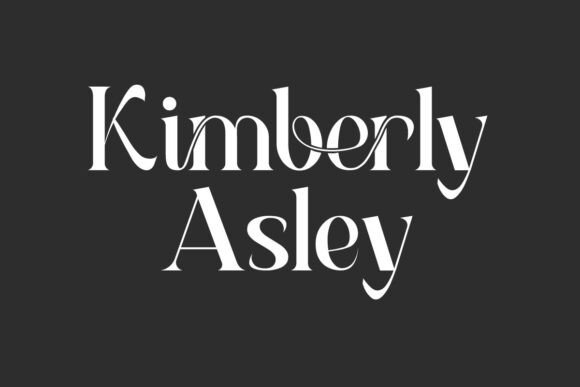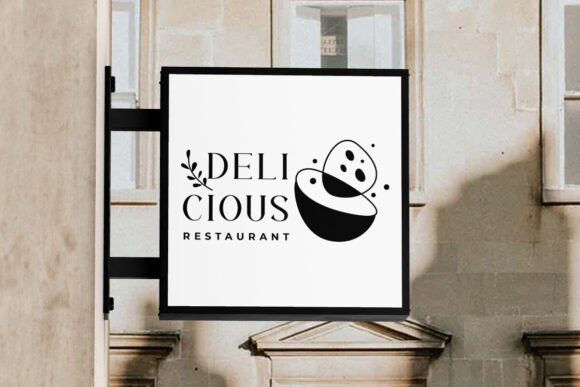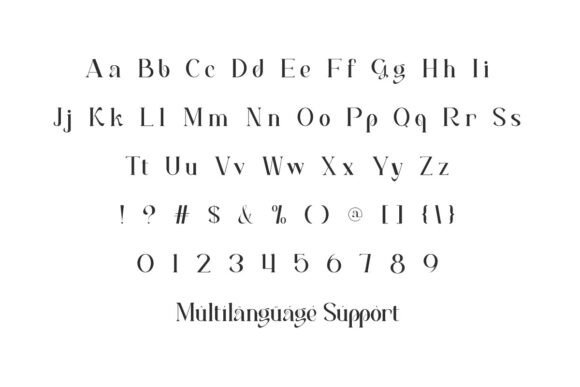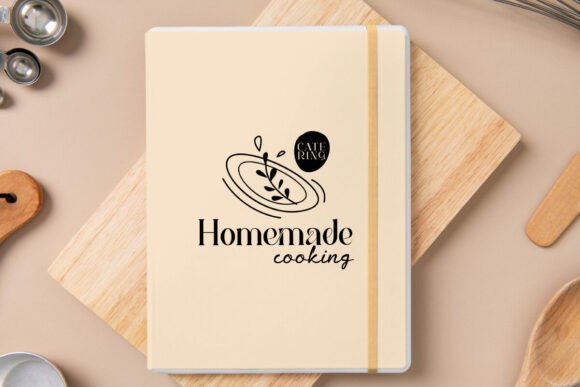
Kimberly Asley Font
About the Kimberly Asley Font
Step up your design game with Kimberly Asley Font, a font that exudes confidence and style. Kimberly Asley Font is a stylish display font. This font has an elegant appearance with lines that are not too thick so it gives a fancy impression. It will be suitable for many industries, such as advertisement, art, beauty products, café, events or festivals, fashion, handicrafts, homeware, perfume, restaurants, etc.
Kimberly Asley excels as a display font for headlines, short text blocks in branding materials, and stylish packaging designs. Its elegant yet delicate nature makes it ideal for projects emphasizing beauty, fashion, or high-end products. However, its thin strokes make it unsuitable for body text or UI elements where high readability is paramount. Long paragraphs set in Kimberly Asley would be difficult to read.
This font’s personality is sophisticated and refined, lending itself to brands aiming for a sense of upscale elegance. Pairing Kimberly Asley with a clean sans-serif like Montserrat for body copy provides a strong contrast and excellent readability. Alternatively, a warmer, slightly more informal serif like Lora can create a balanced, luxurious feel. Avoid pairing it with other highly decorative fonts, which could overwhelm its subtle grace.
For a more modern edge, consider pairing it with a geometric sans-serif such as Futura. This combination would be particularly effective for minimalist branding projects.
Kimberly Asley Font Usage Examples
Kimberly Asley Font Example